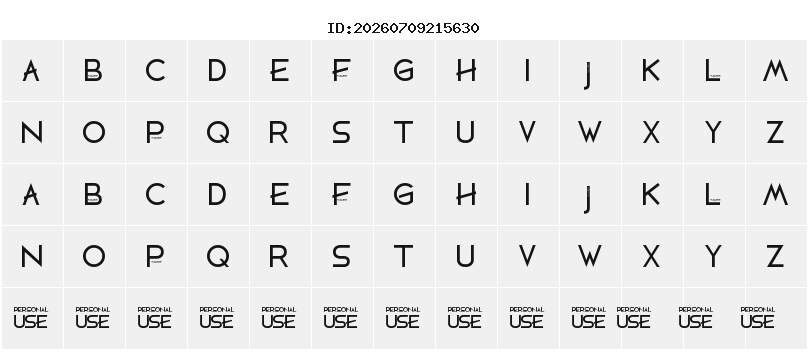
• Font Name: DEATH OCEAN
• Designer: Luis Jaramillo
• Manufacturer: LJ-Design Studios
About DEATH OCEAN.ttf
DEATH OCEAN.ttf is a modern, elegant sans-serif font designed for ultimate readability and visual harmony. Perfect for branding, headlines, web design, and print materials.